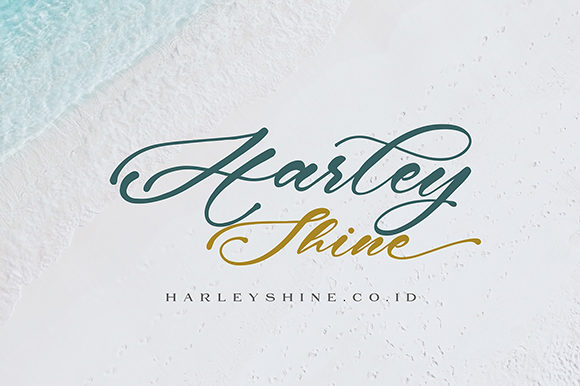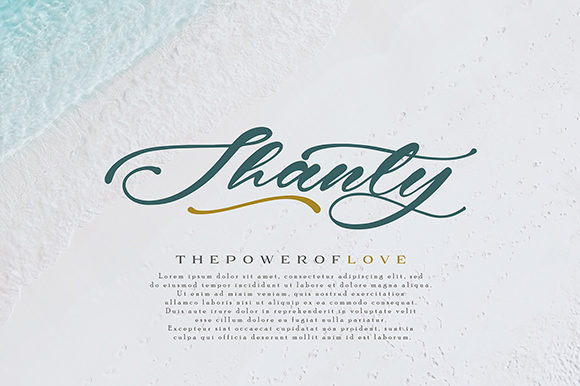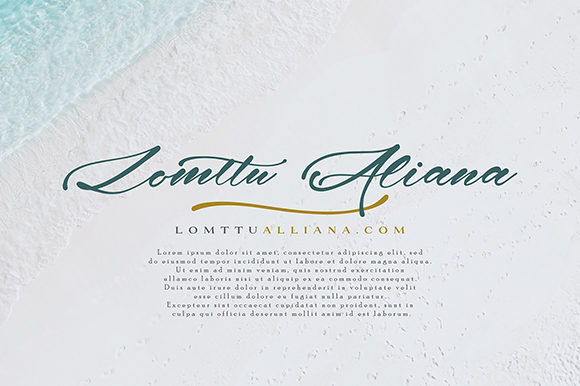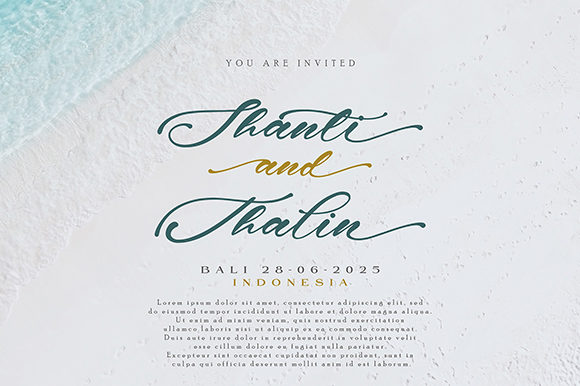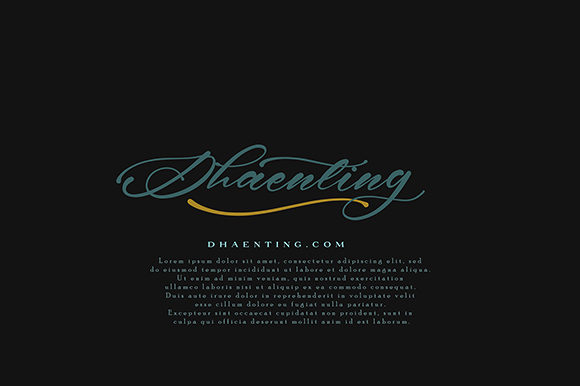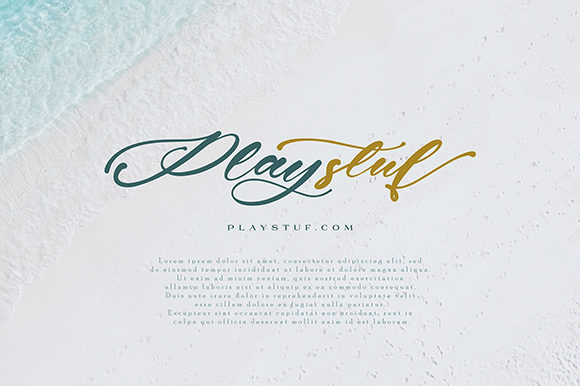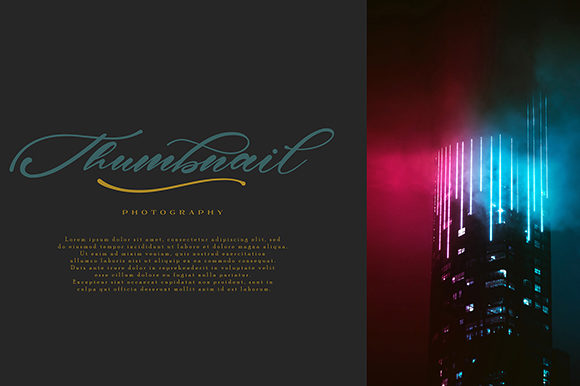
HomeScript FontsAlayska Font Script Fonts Alayska Font FacebookXPinterestWhatsApp Alayska Font Poster 2 Alayska Font Poster 3 Alayska Font Poster 4 Alayska Font Poster 5 Alayska Font Poster 6 Alayska Font Poster 7 Alayska Font Poster 8 About Alayska Font Alayska is a smooth and thin handwritten script with incredible authenticity. Get inspired by its unique charm! DOWNLOAD NOW People also explored Mandala Font Beanstalk Font Monthe Font Ebullience Font Mistady Font Walking Dream Font Counter Courage Font Sunday Grinch Font Herbaceous Border Font 347 0 TagsAlayska Font Previous articleNightmare Script FontNext articleMountecarlo Font LEAVE A REPLY Cancel reply Comment: Please enter your comment! Name:* Please enter your name here Email:* You have entered an incorrect email address! Please enter your email address here Website: Save my name, email, and website in this browser for the next time I comment. Personal Use Free Camping Personal Use Free Read more about this font Cloudy Night Personal Use Free Read more about this font Krabuler Personal Use Free Read more about this font Fifteenth Century Personal Use Free Read more about this font BLOG Free vs Paid Fonts: Why Investing in Premium Fonts Is Worth It Free vs Paid Fonts: Why Premium Fonts Are Worth It in 2025 The debate of free vs paid fonts continues in the design world. While... How to Cut Any Font on Cricut: Convert a Font to SVG (Free) The 10 Best Handwriting Fonts to Add Personality to Your Designs Exploring Font Trends